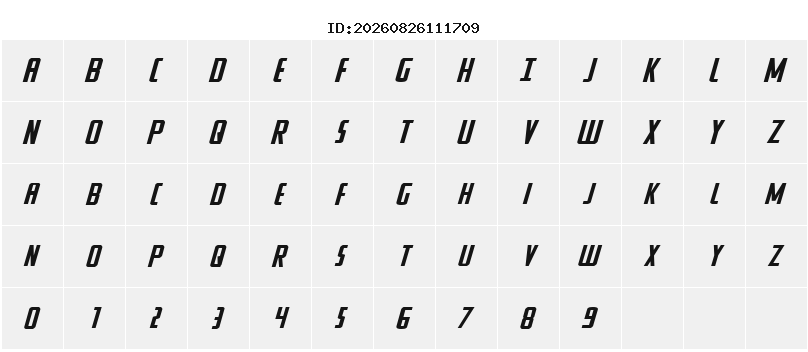
Watchtower Expanded Italic Preview
• Font Name: Watchtower Expanded Italic
• Font Style: Expanded Italic
• Full Font Name: Watchtower Expanded Italic
About Watchtower Expanded Italic.ttf
Watchtower Expanded Italic.ttf is a modern, elegant sans-serif font designed for ultimate readability and visual harmony. Perfect for branding, headlines, web design, and print materials.